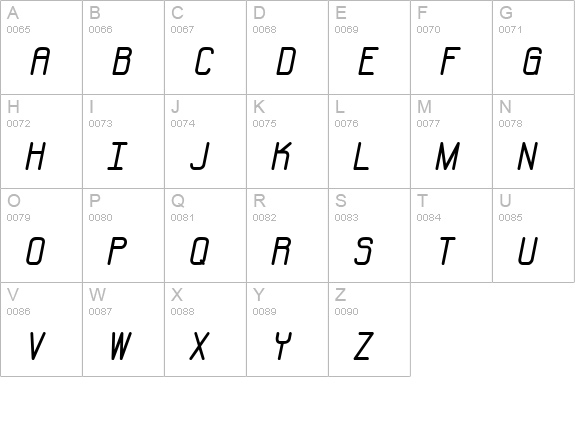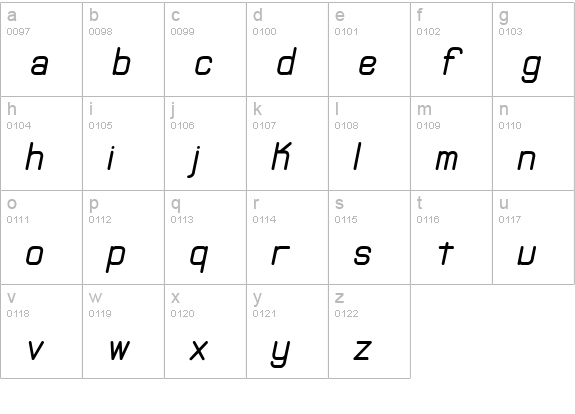
Neural (BRK) Font Details
Neural (BRK) font is a futuristic and innovative typeface that exudes a sense of cutting-edge technology. Its sleek and modern design makes it perfect for projects related to science fiction, technology, and digital innovation. The font features sharp angles and clean lines, giving it a distinct and impactful look. What sets Neural (BRK) font apart is that it is available for free download at FontsMarket.com. This means that you can easily access and use this unique font in your projects without any cost. Whether you are designing a website, creating a poster, or developing a branding concept, Neural (BRK) font offers a versatile and eye-catching option that will help your work stand out. With its bold and dynamic appearance, Neural (BRK) font is sure to make a statement and leave a lasting impression on your audience. Download it for free today and elevate your design projects with this futuristic and visually striking typeface.